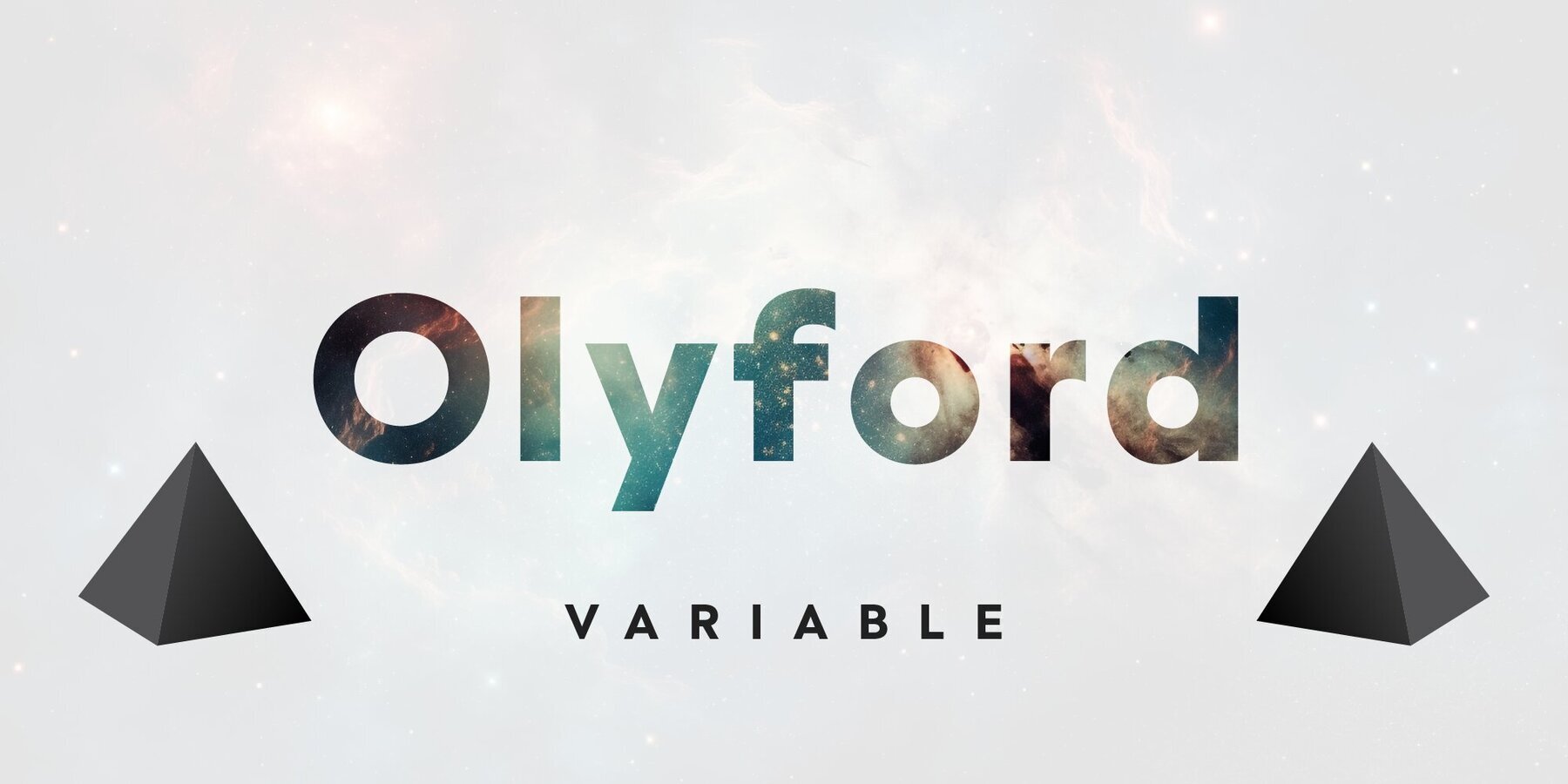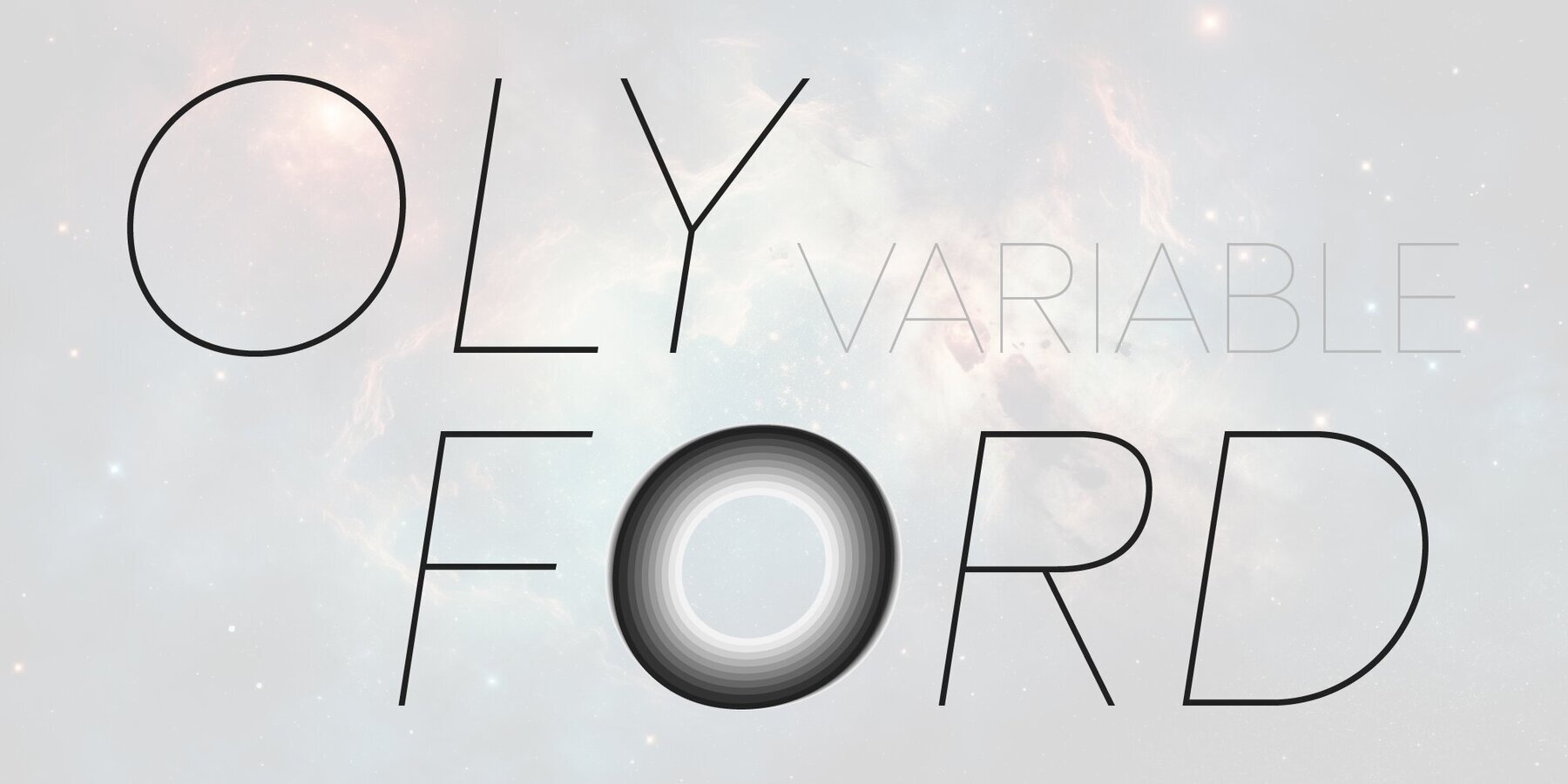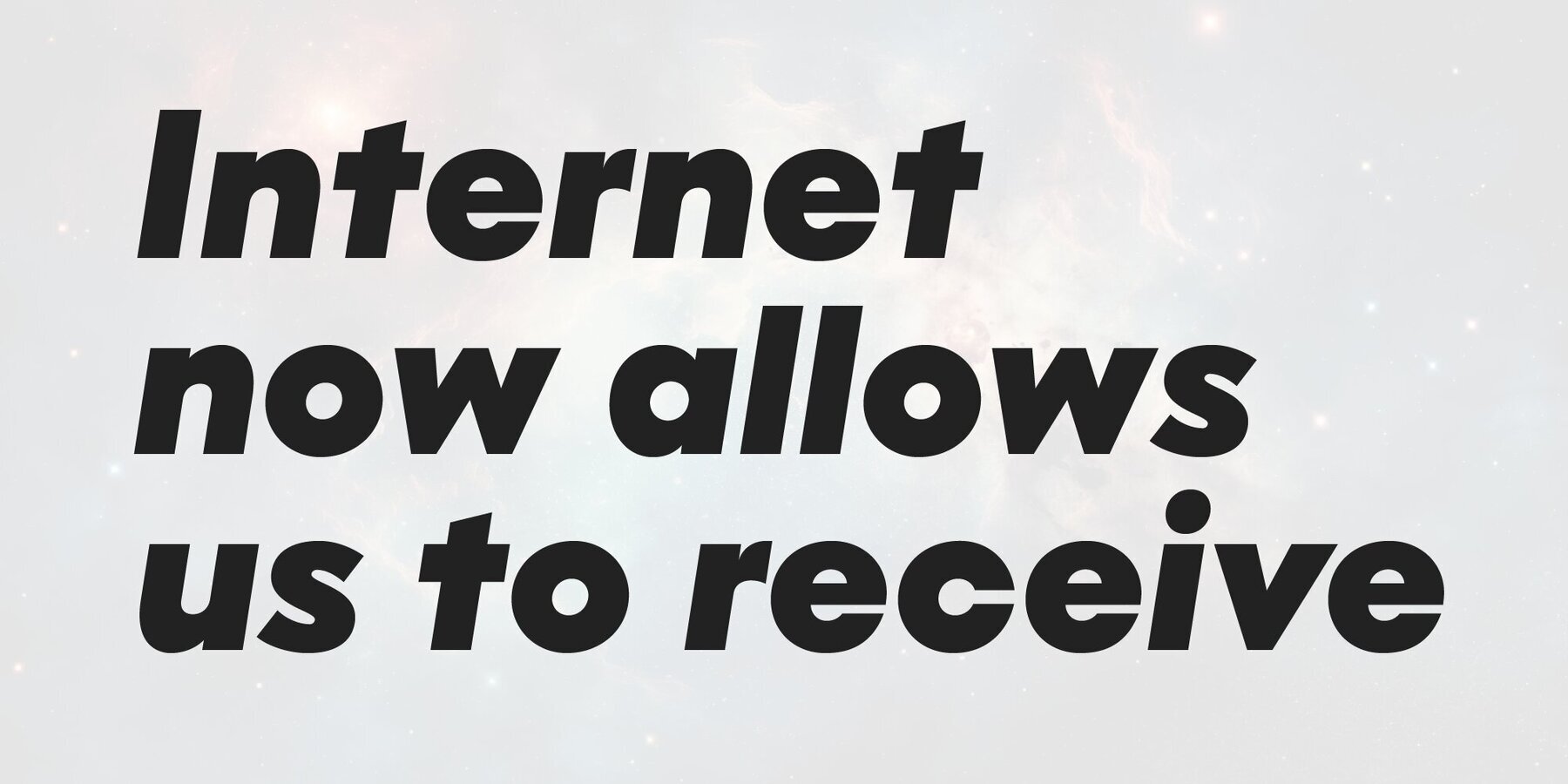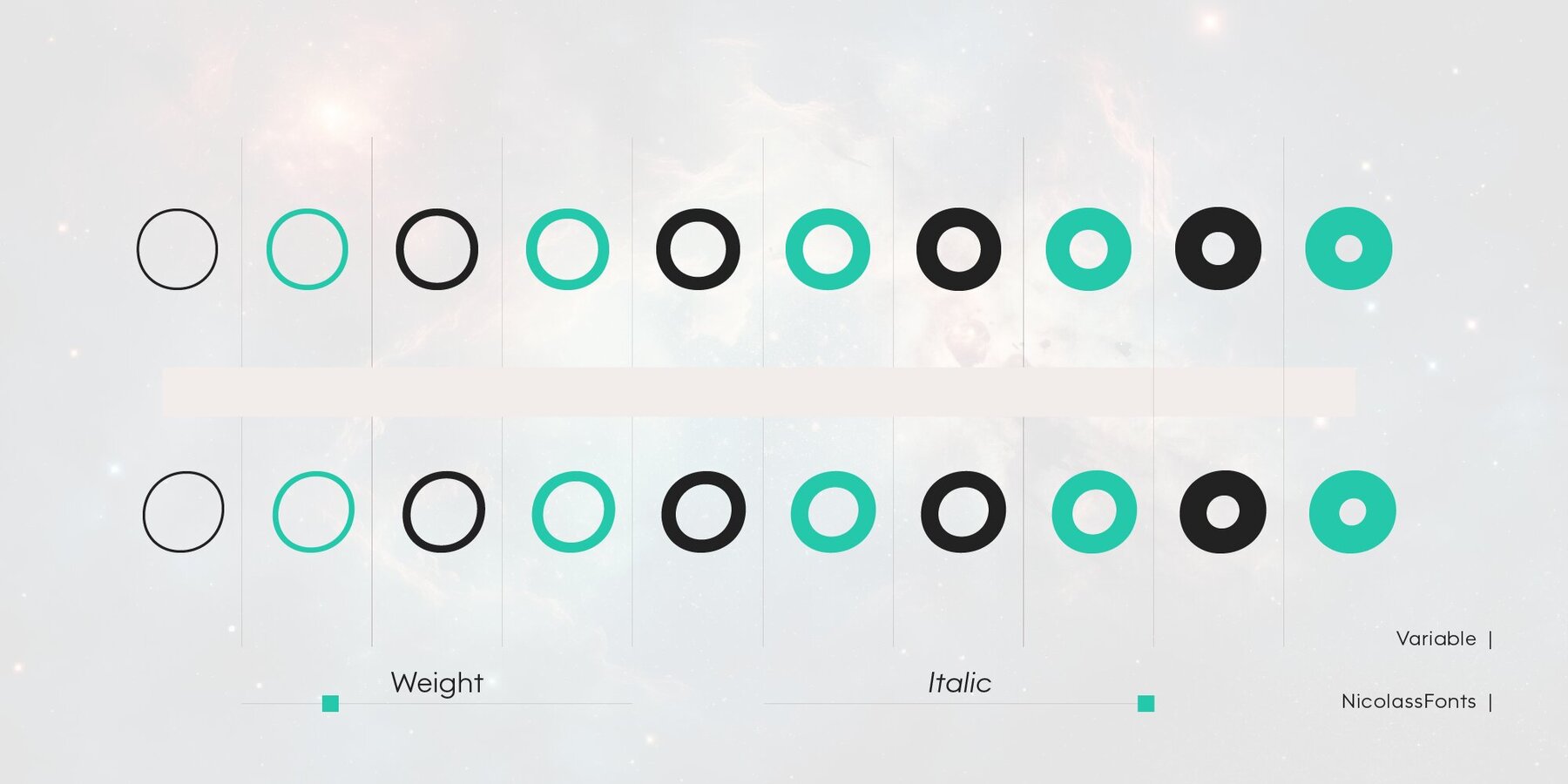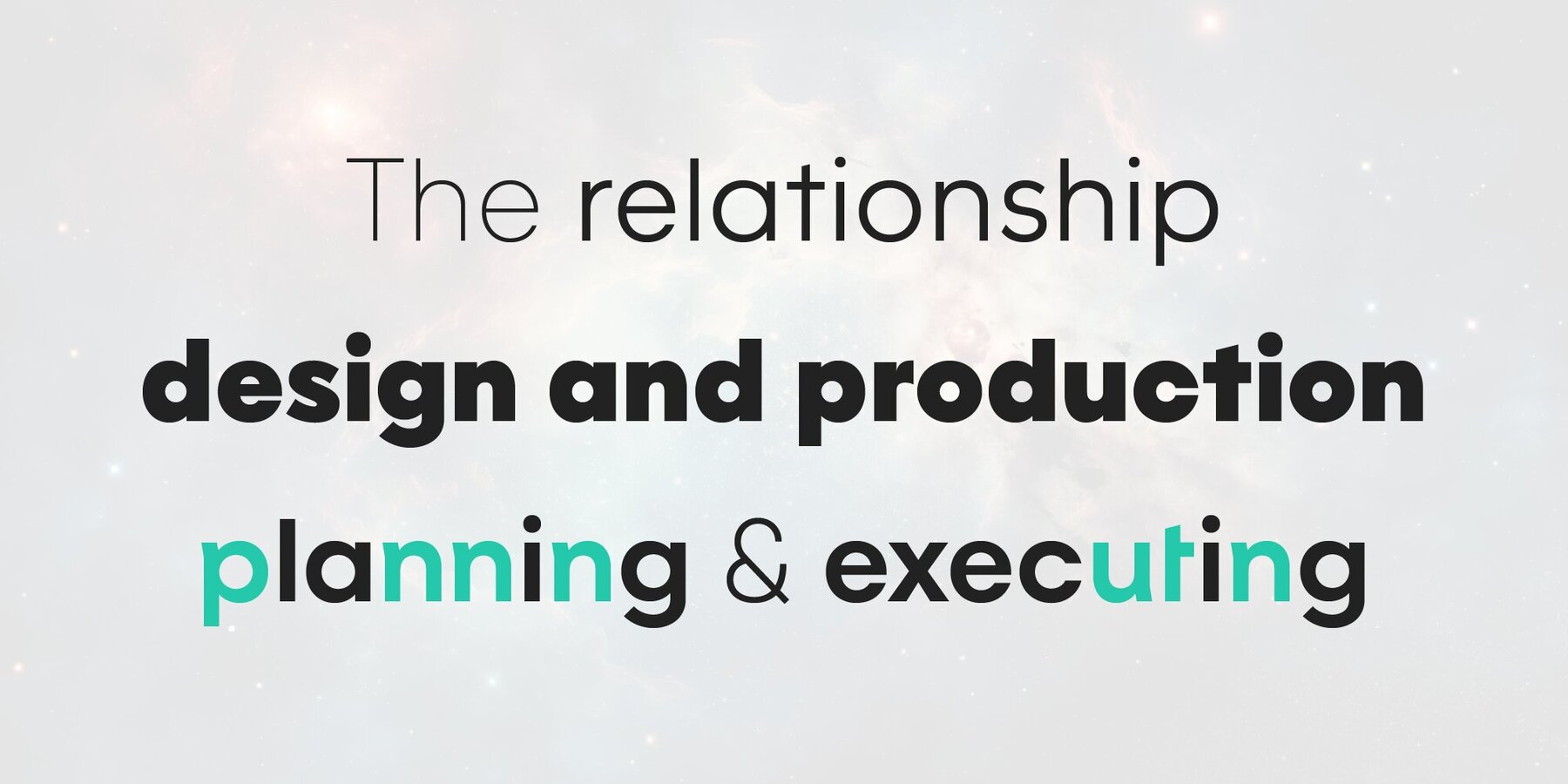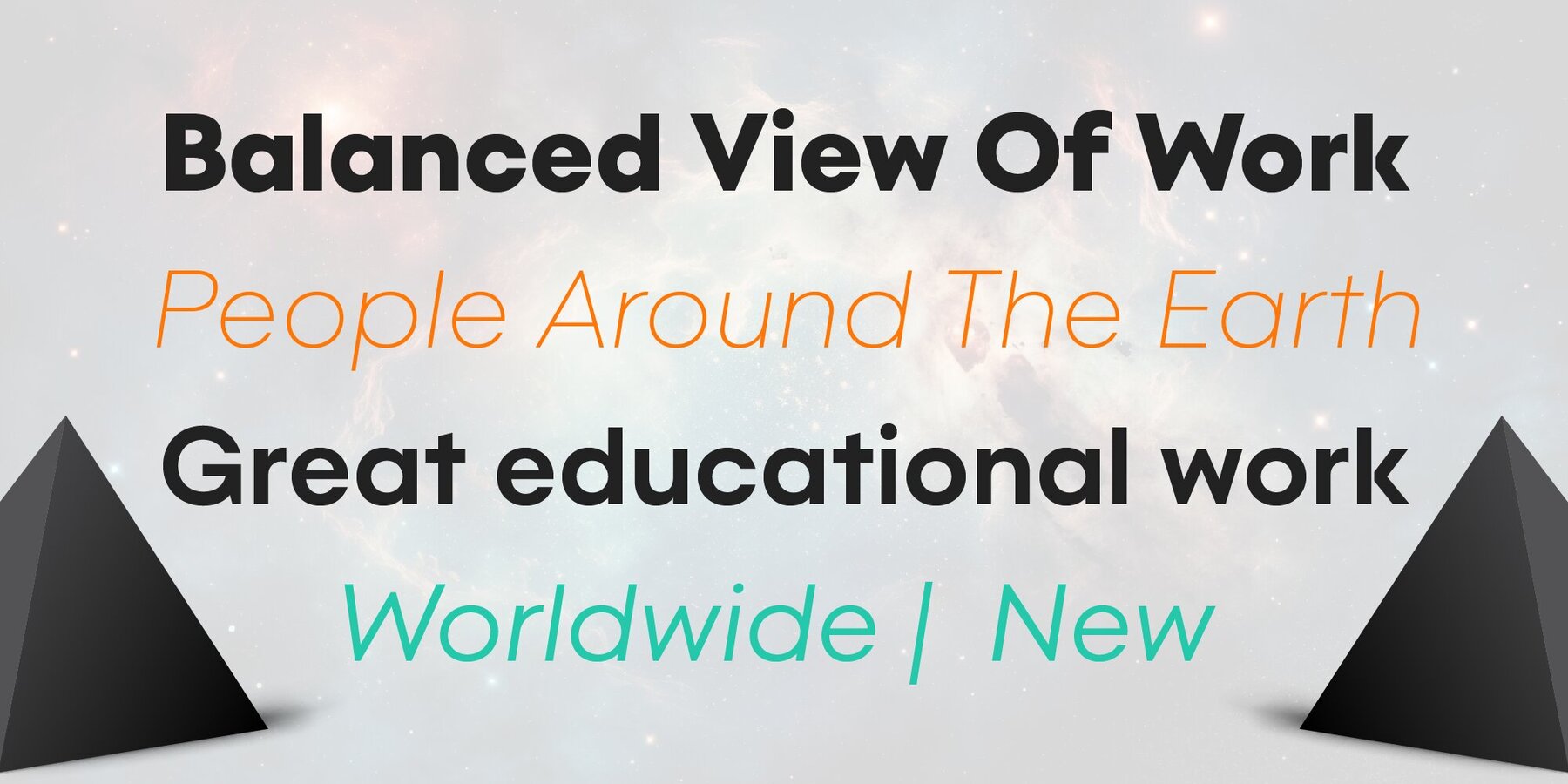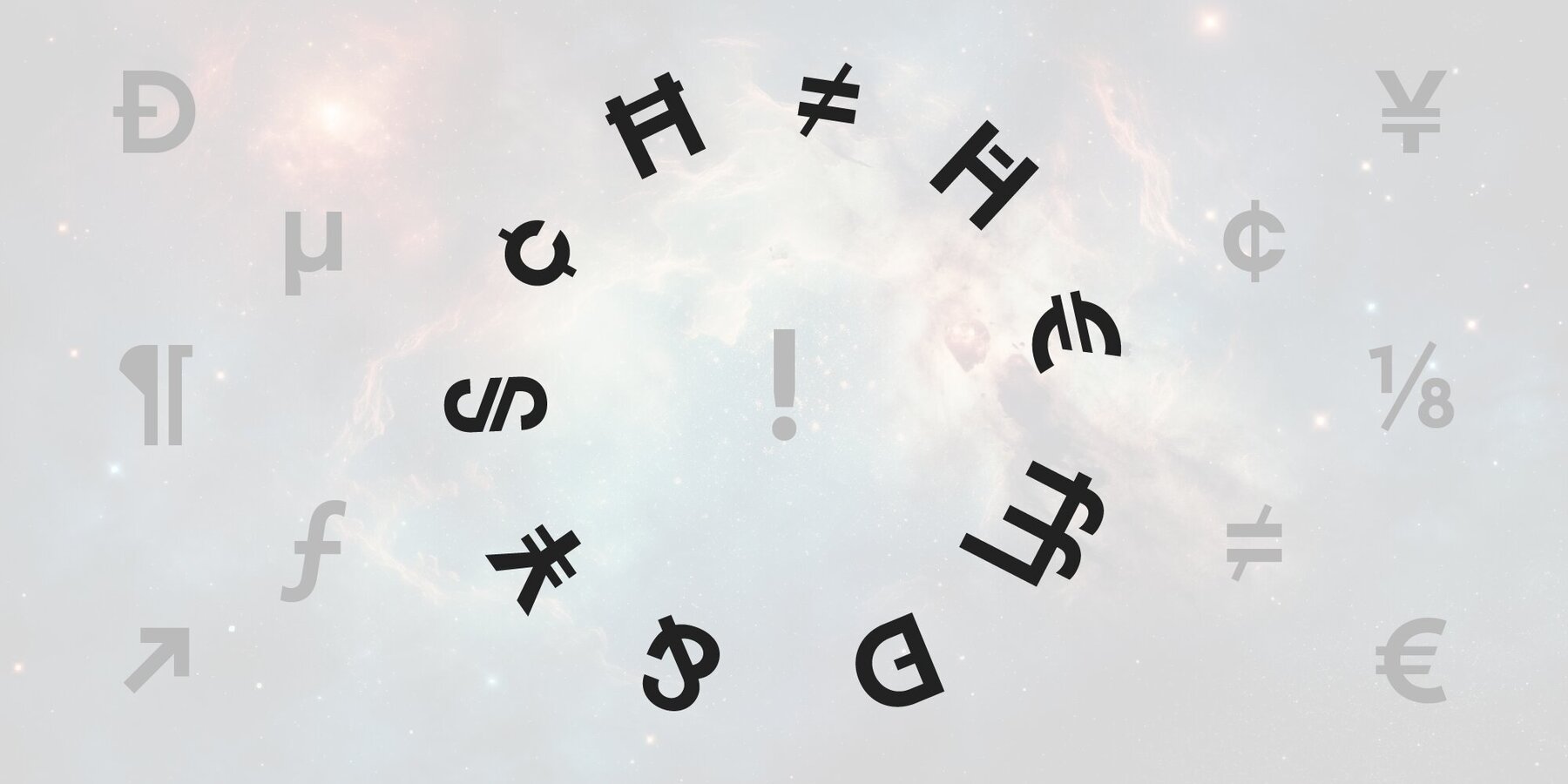
Olyford Variable Font
Olyford Variable
Olyford Variable font is a contemporary sans serif typeface that is derived from the Olyford font family. It features a range of weights and italics. OpenType features: Access All Alternates, Stylistic Alternates (Alternative n, m, p, q, r, u), Stylistic Set 1 (Alternative K, k), Stylistic Set 2 (Alternative W), Stylistic Set 3 (Alternative t), Stylistic Set 4 (Alternative w), Stylistic Set 5 (Alternative 5), Stylistic Set 6 (Alternative ¢, $, €, ₽, ¥), Stylistic Set 7 (Alternative Đ, Ħ, Ð, ≠, ∫), Standard Ligatures, Discretionary Ligatures, Proportional Figures, Tabular Figures, Case-Sensitive Forms, Fractions, Kerning, Denominators, Numerators, Scientific Inferiors, Subscript, Superscript, Ordinals, Localized Forms.
Savchuk Mykola began his career as a graphic designer. Over time, he had a desire to create a font that would reflect his view of typography. ‘They say that all ingenious things are simple, although unique. In my future projects, I want to reflect simplicity on the one hand and uniqueness on the other, providi...